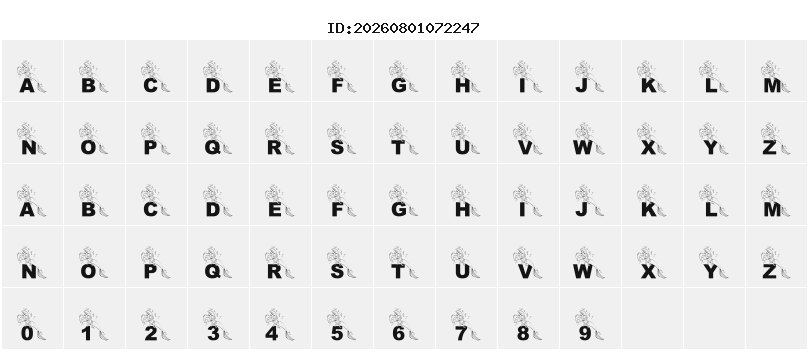
• Font Name: LMS Part Of The Font World
• Font ID: Macromedia Fontographer 4.1 LMS Part Of The Font World
• Full Font Name: LMS Part Of The Font World
• Version: Macromedia Fontographer 4.1 9/30/2004
• PostScript Name: LMSPartOfTheFontWorld
• Character Count: 65
About LMS Part Of The Font World.ttf
LMS Part Of The Font World.ttf is a modern, elegant sans-serif font designed for ultimate readability and visual harmony. Perfect for branding, headlines, web design, and print materials.